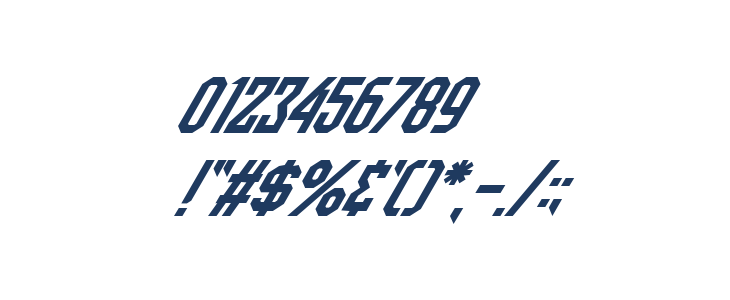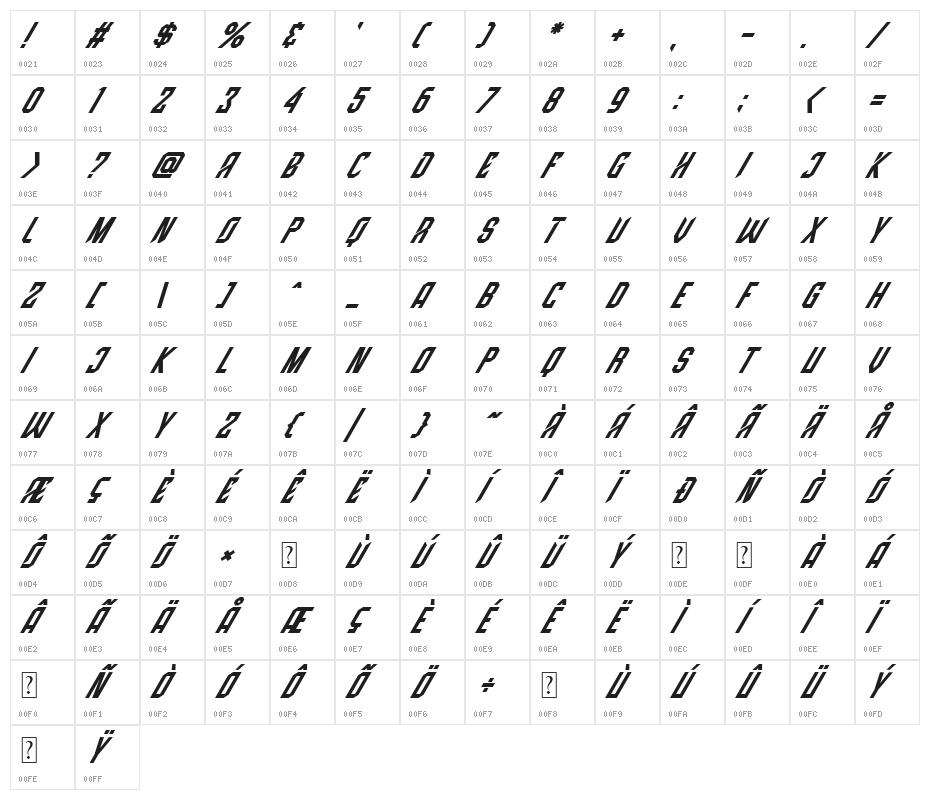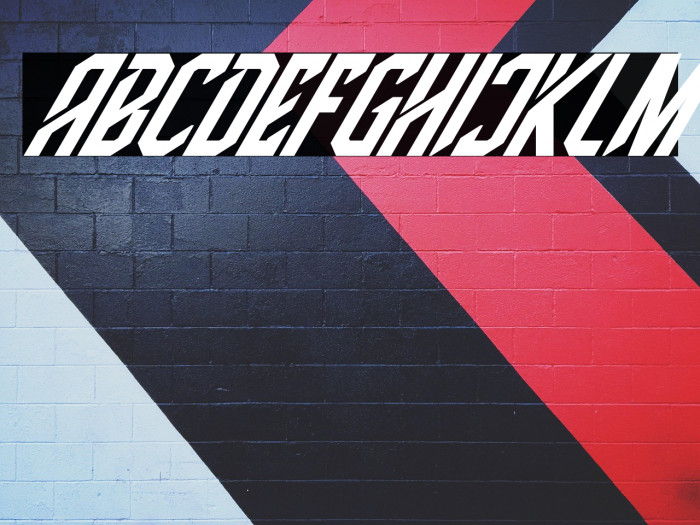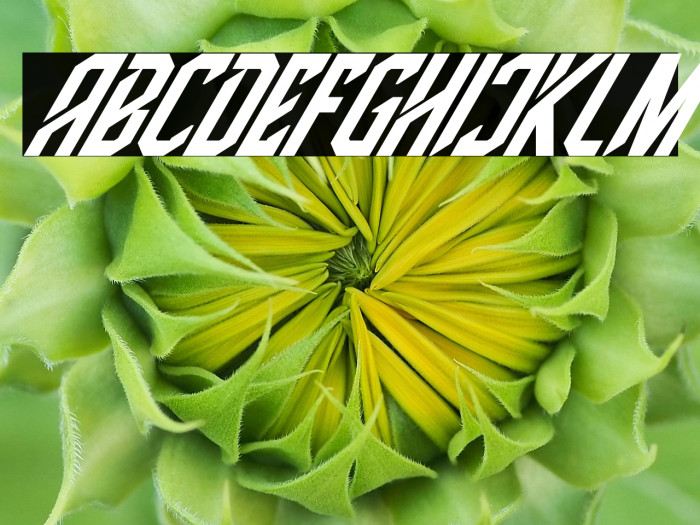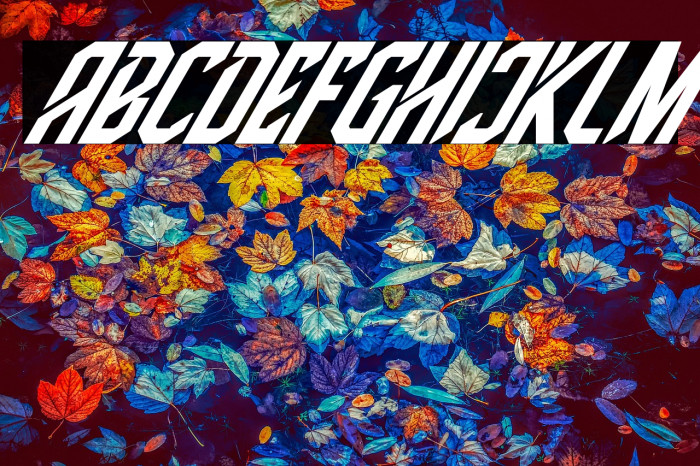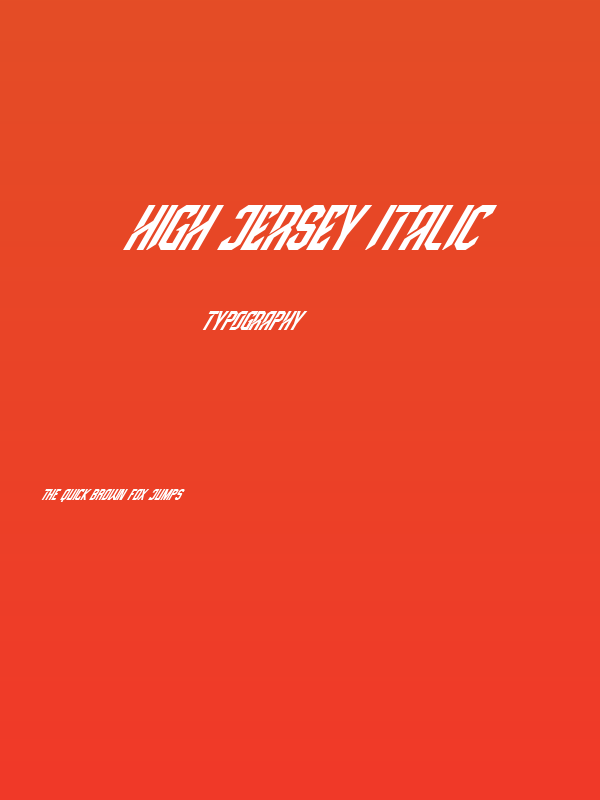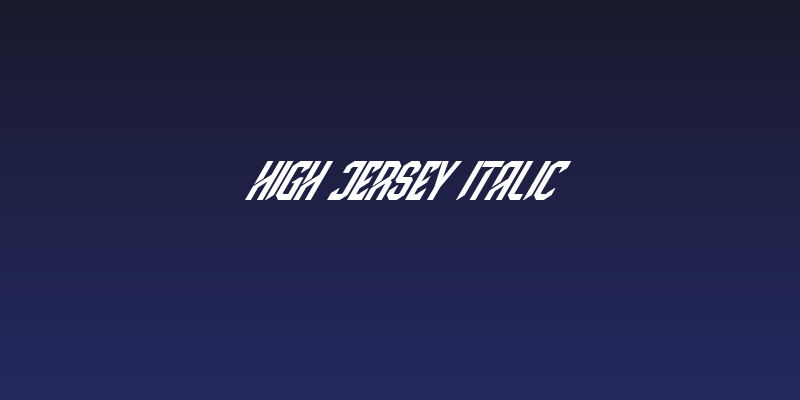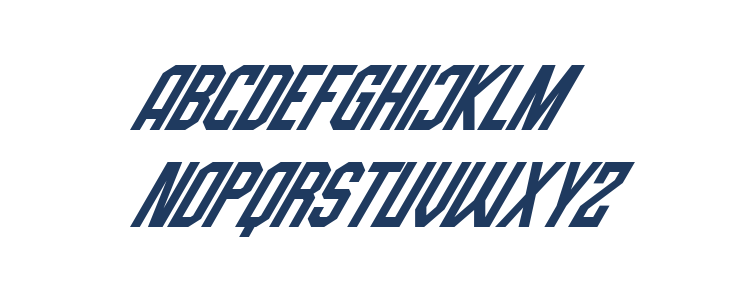
High Jersey Italic Font
High Jersey Italic Description
This font features a bold, italicized style with a strong, dynamic presence. The characters are sharply angled, giving a sense of movement and energy. The uppercase letters are particularly striking, with a consistent slant that enhances the italic effect. The numbers and special characters maintain this bold, angular style, ensuring uniformity across all glyphs. The font's design is reminiscent of sports or racing themes, making it ideal for projects that require a sense of speed or action. The overall look is modern and assertive, making it suitable for attention-grabbing headlines or logos.
| Proposed Projects | Ideal for sports branding, racing event posters, dynamic logos, and action-themed headlines. |